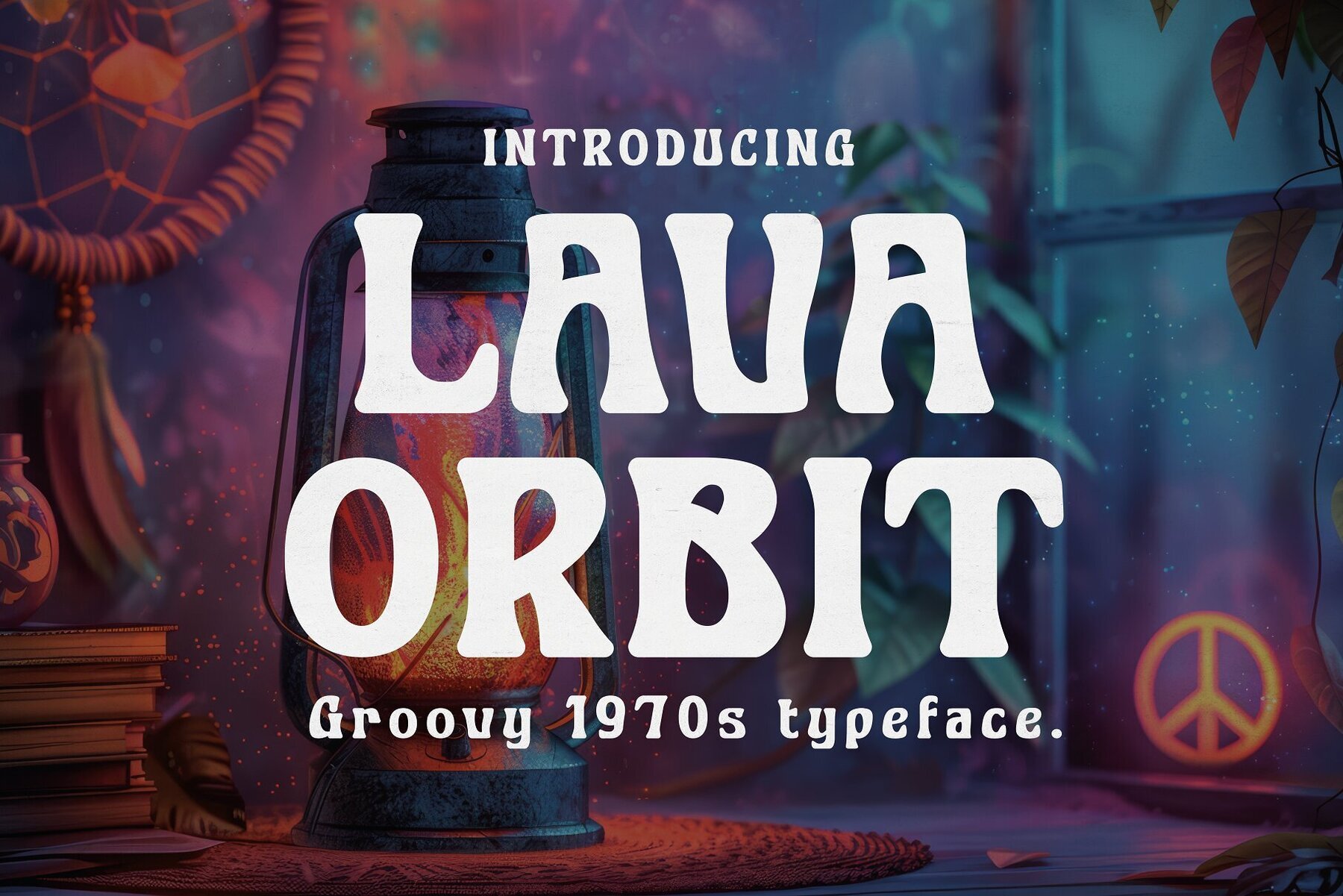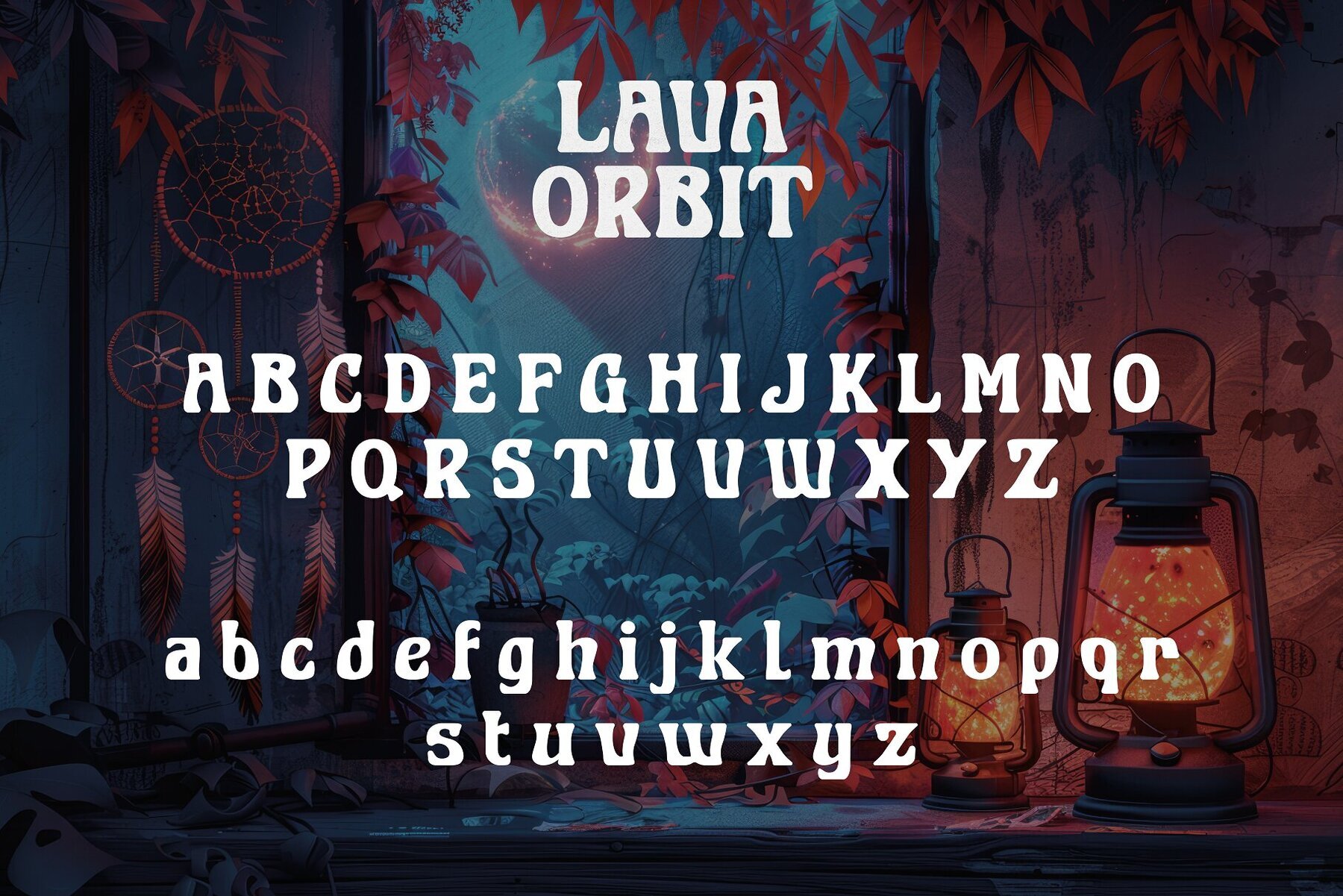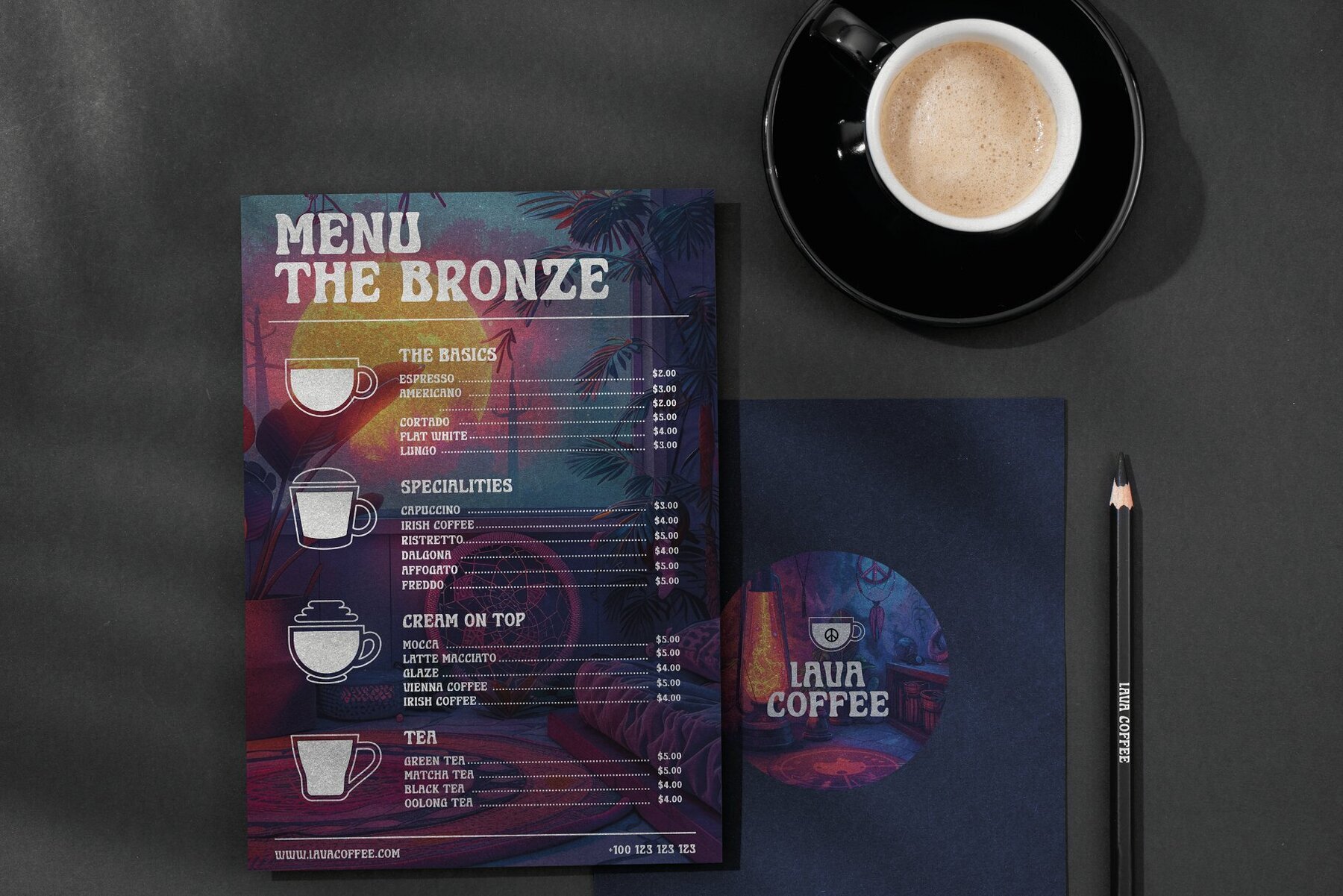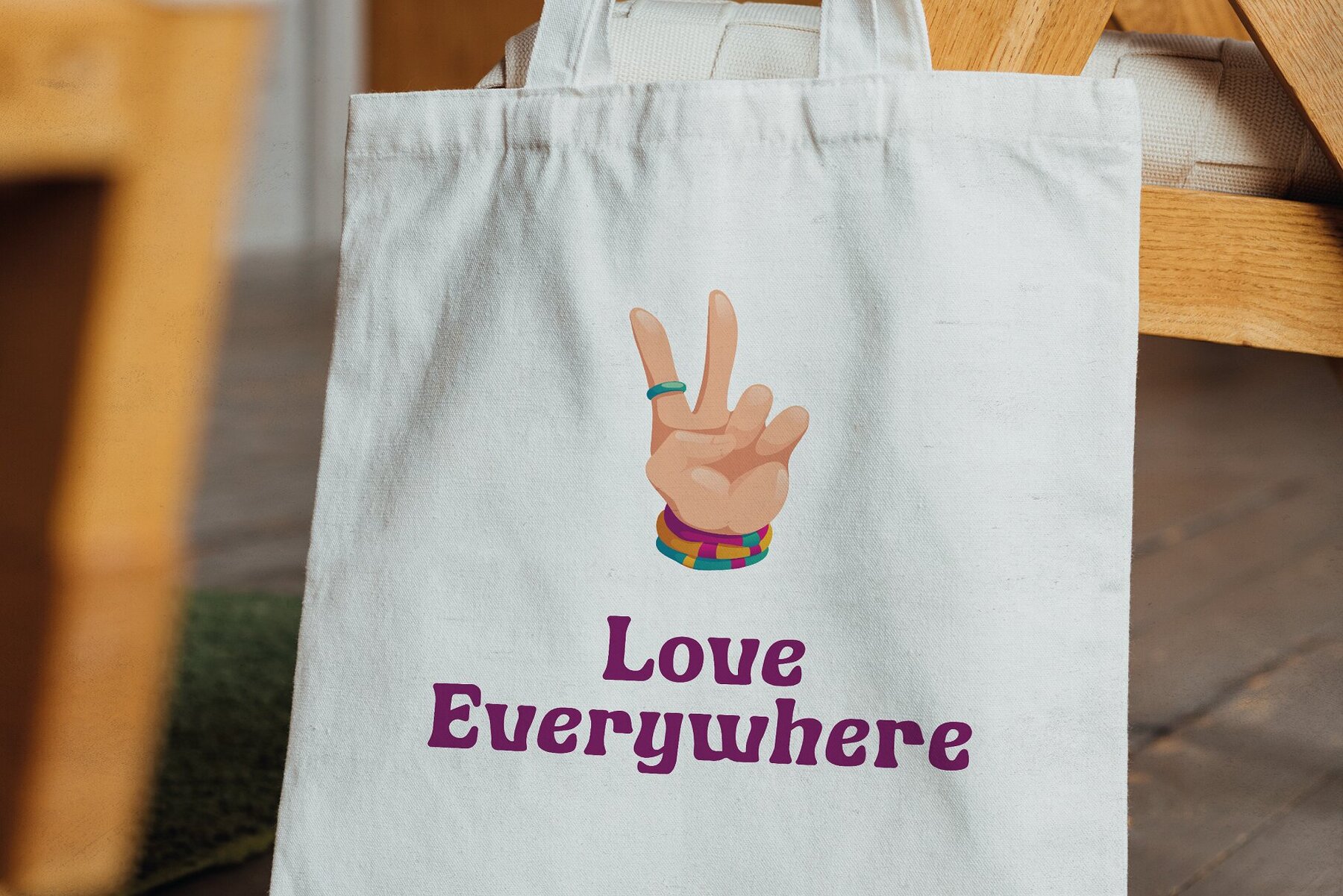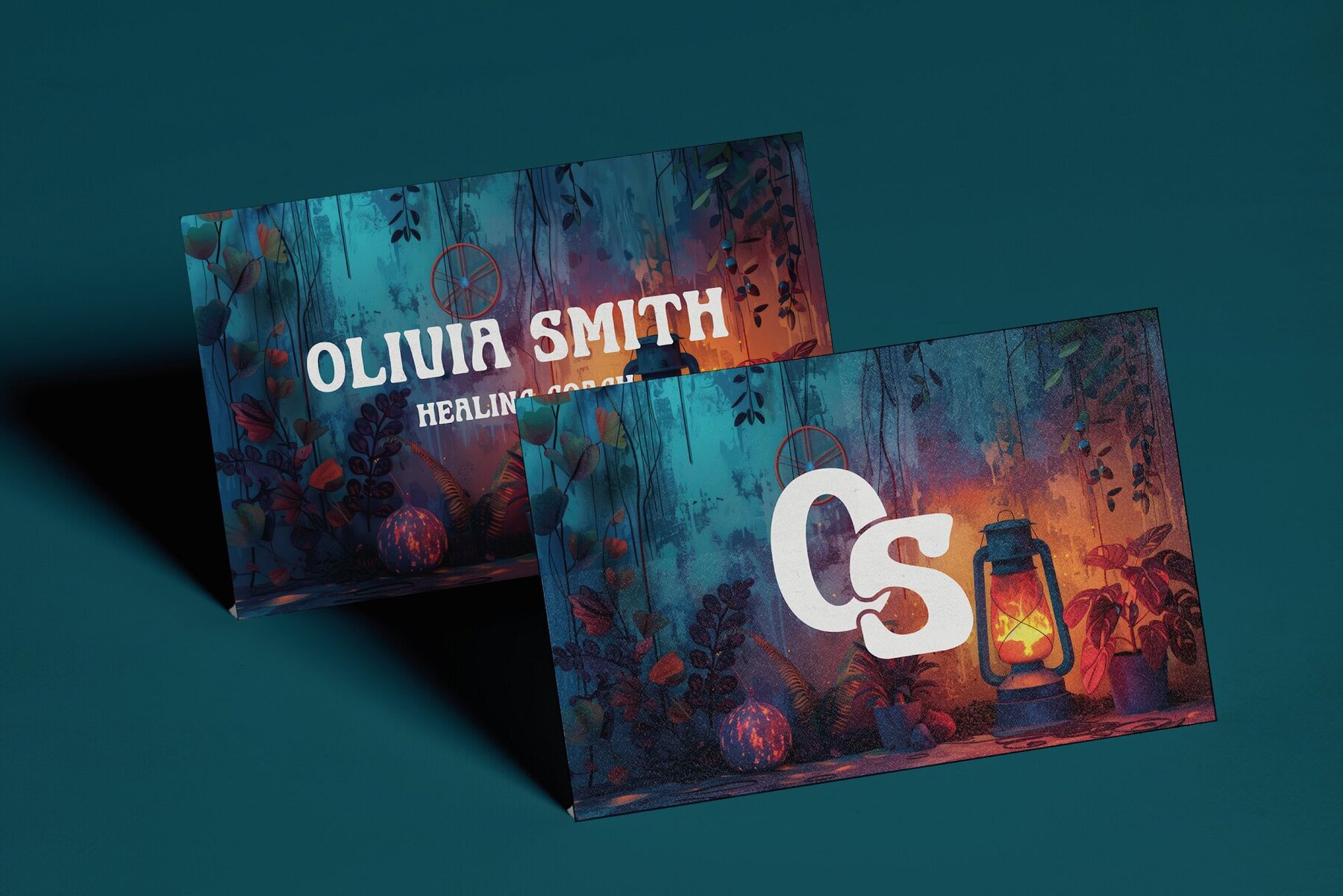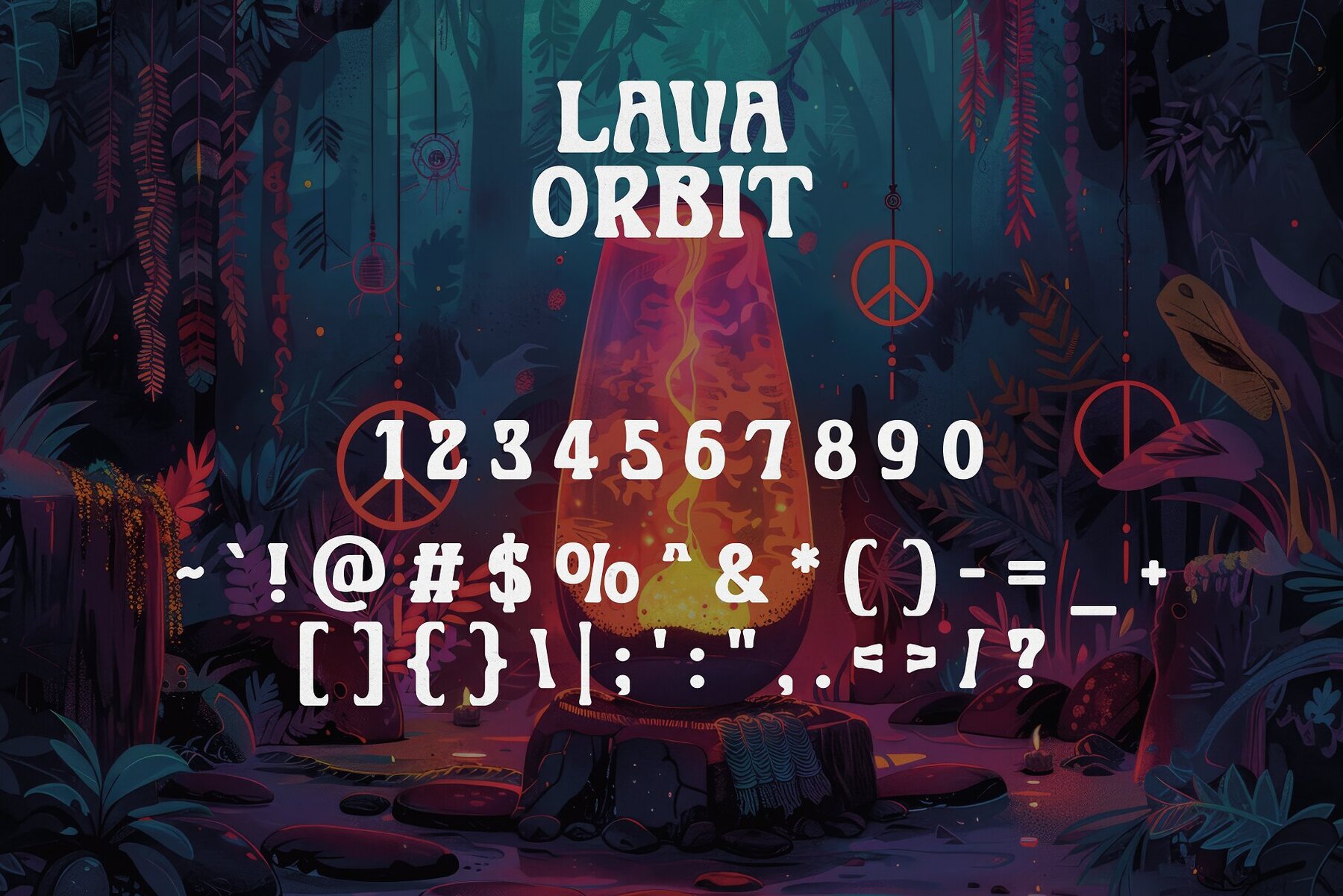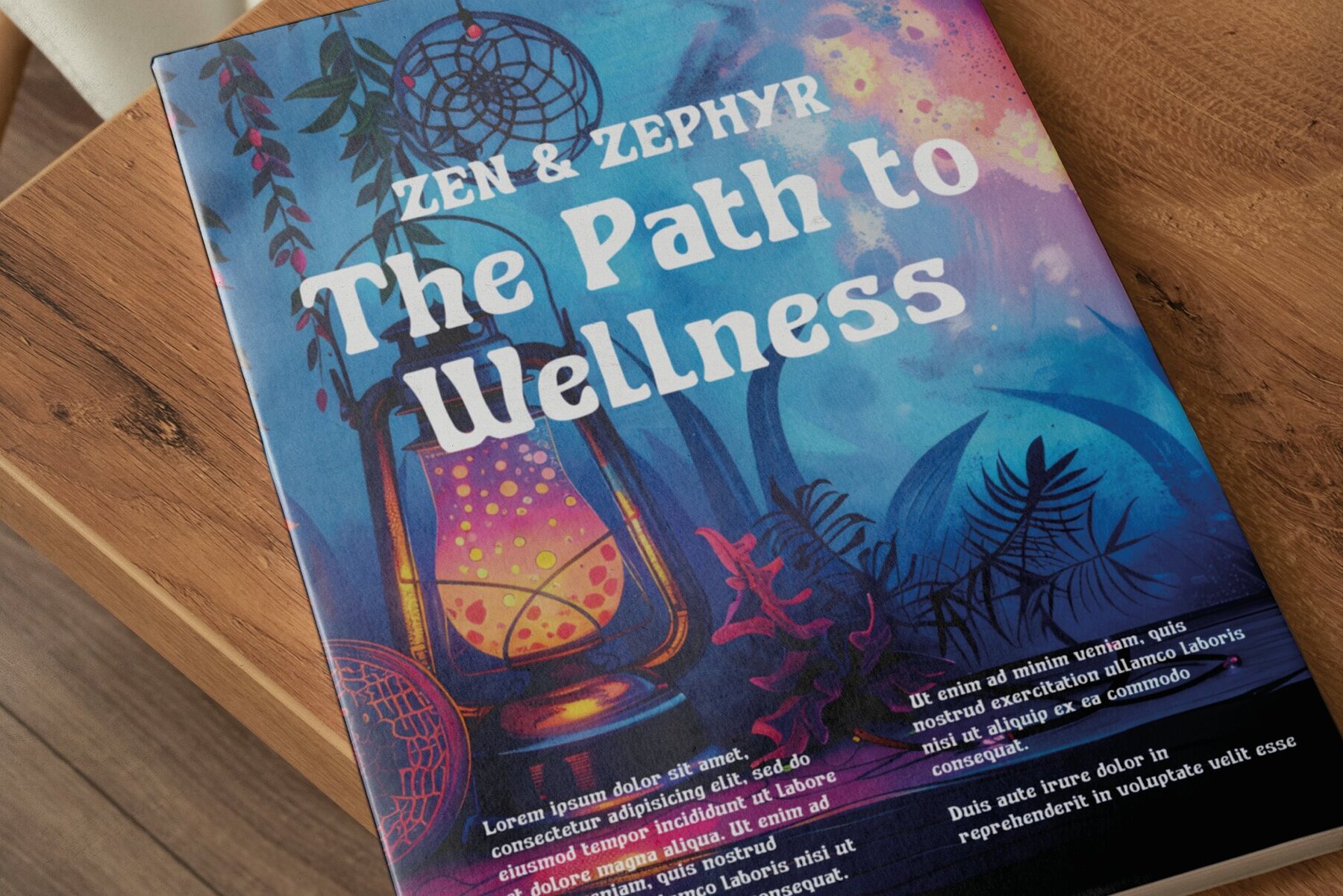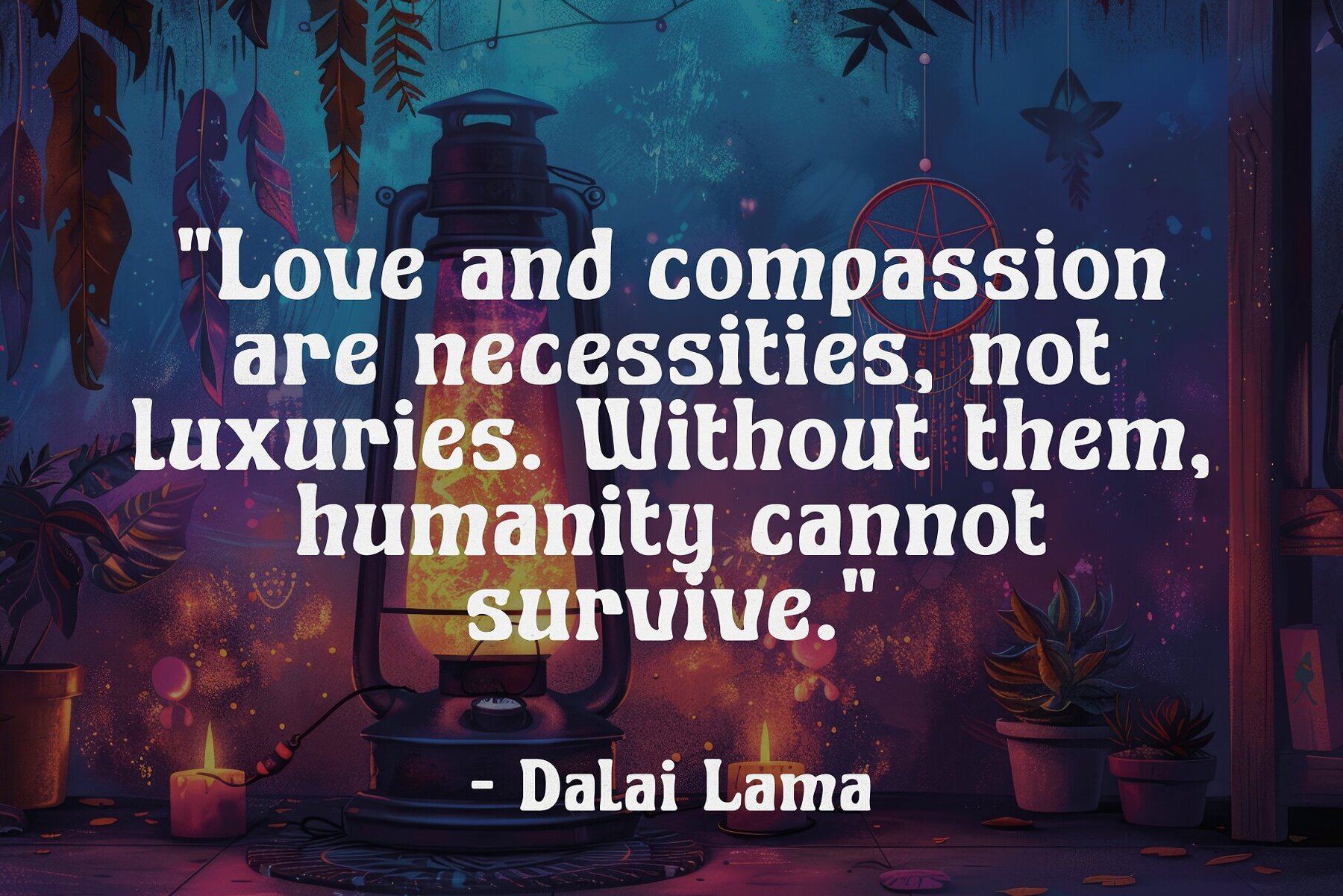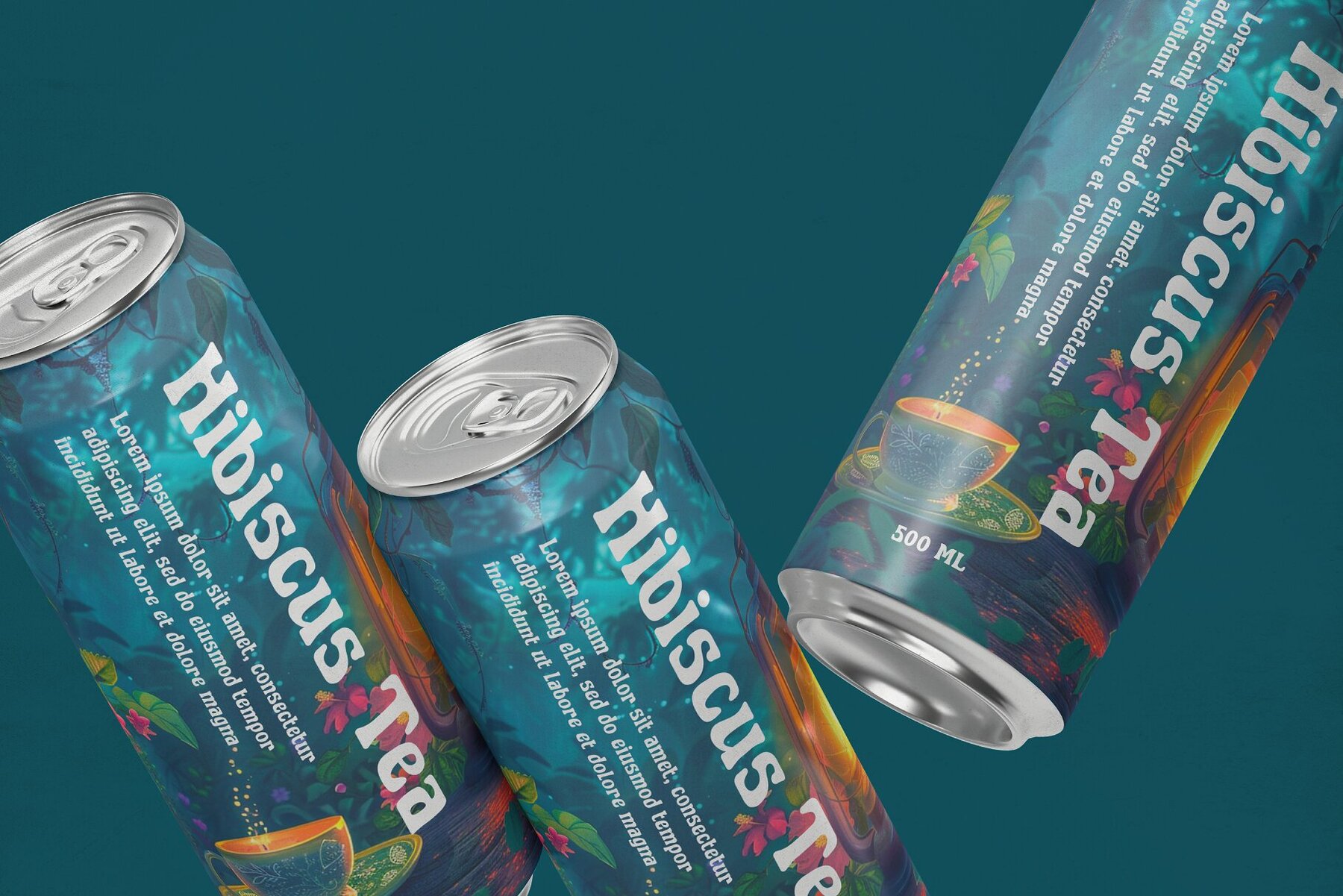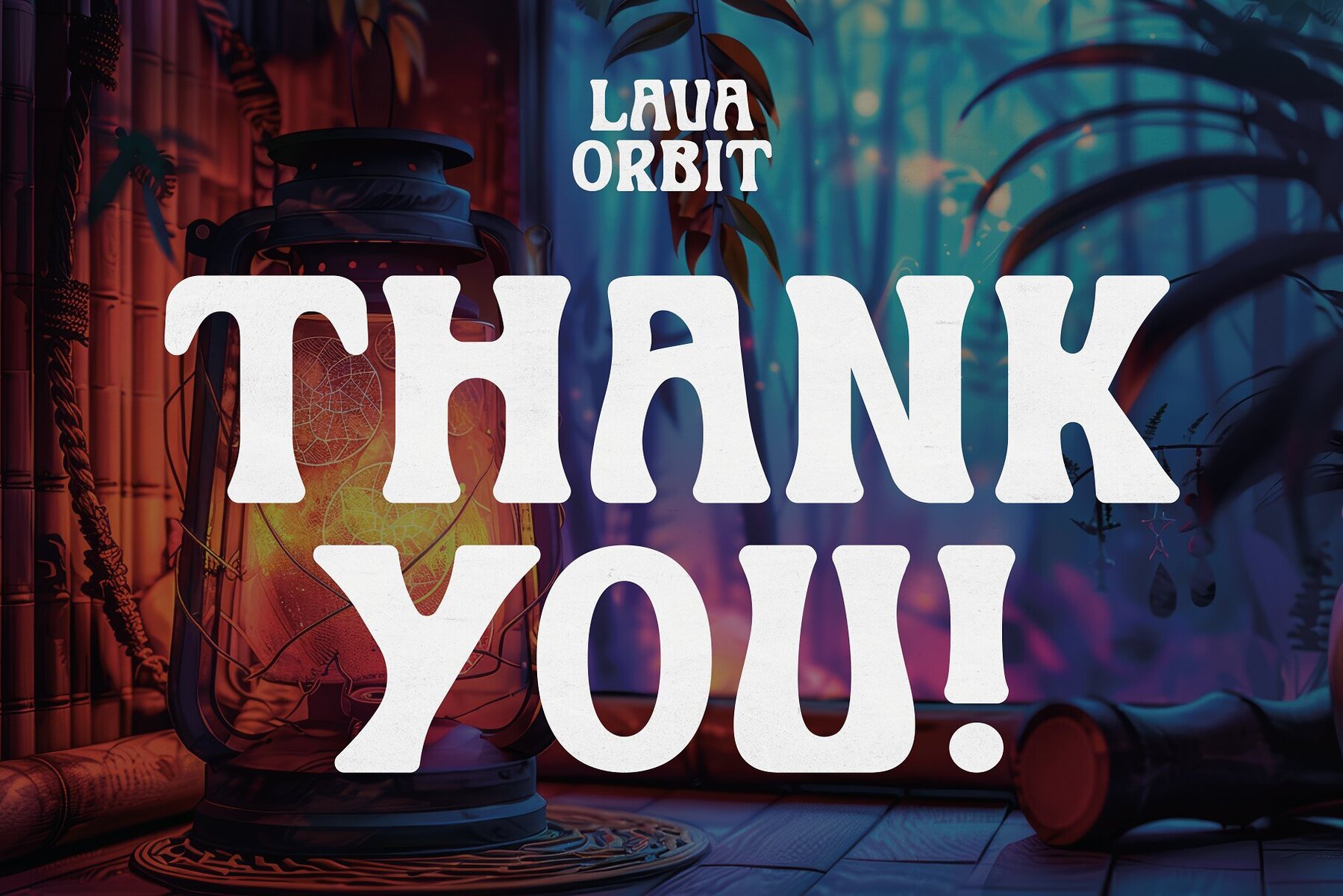
Lava Orbit Font
Lava Orbit
Introducing Lava Orbit, a typeface inspired by the iconic lava lamps of the 1970s. Dive into the groovy era with a font that captures the vibrant, free-spirited essence of the decade. Lavish, fluid shapes reminiscent of lava lamps bring a nostalgic touch to your designs, offering a unique blend of funky and playful elements that make each project stand out.
Lava Orbit is more than just a typeface; it's a trip back to one of the most colorful decades in history. Perfect for invoking nostalgia or adding a whimsical touch to your work, this typeface embodies the psychedelic energy of the 70s. Embrace the groove with Lava Orbit and let your designs flow with its captivating, retro charm.